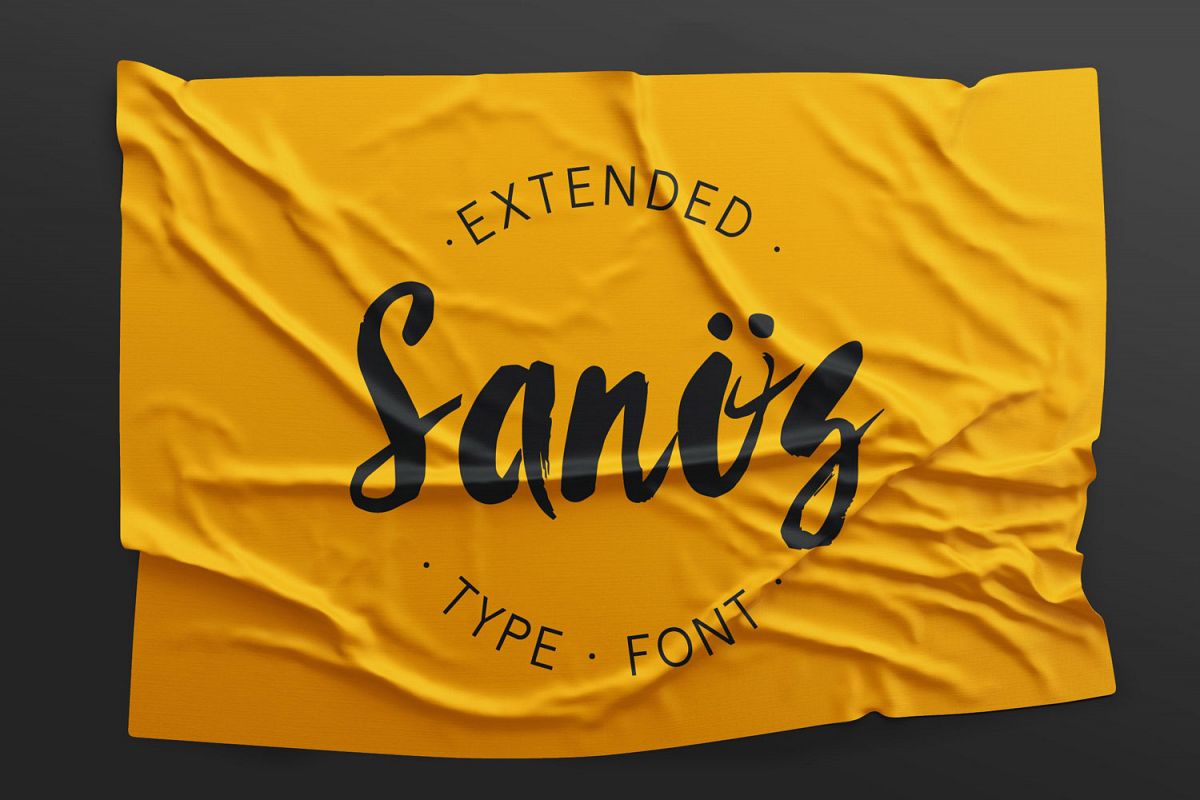
Sanös Extended Script Font
SansExtended
Sanös Extended Script Font is perfect for handwriting style projects. It comes in two formats .TTF and .WOFF. So you can also use it for web sites and apps.The font features both uppercase and lowercase letters, so you will have a wide range of characters to use in typographic work. It has updated open type features and advanced kerning. Multiple language support.This brush script font works best for fashion, beauty products, food, apparel and magazines. Sanös Extended Brush Script Font could also be used for film, television, marketing, advertising and websites. Take your designs to the next level with Sanös Extended Brush Font.Download contains .otf and .woff  files.Appreciate the project and follow us :)